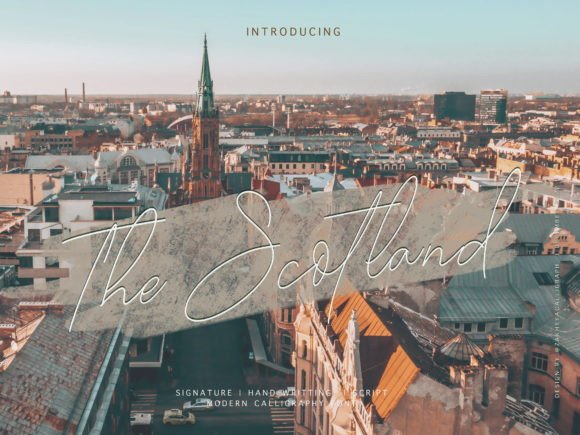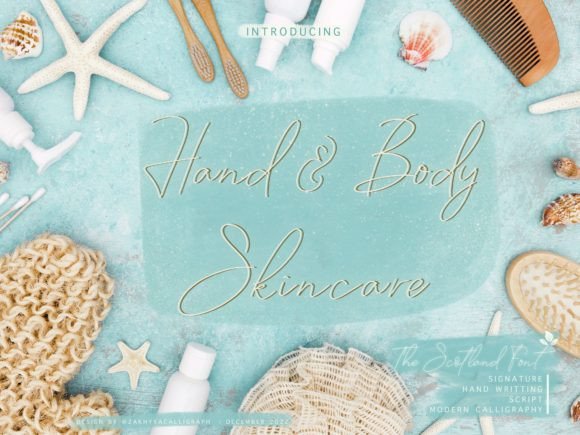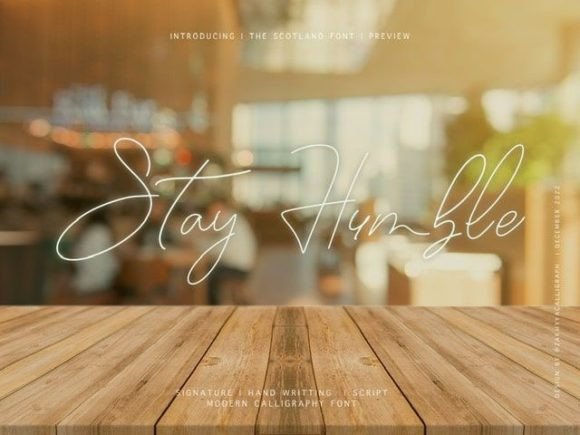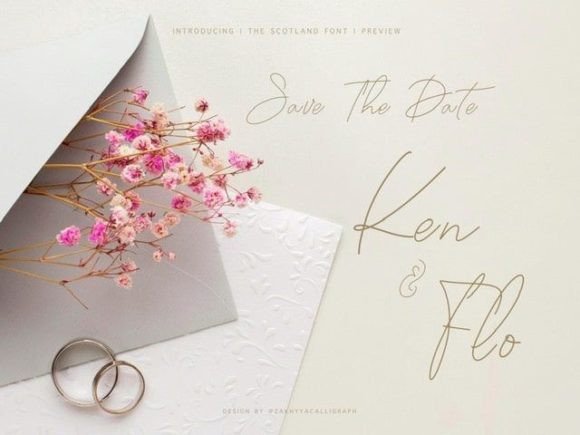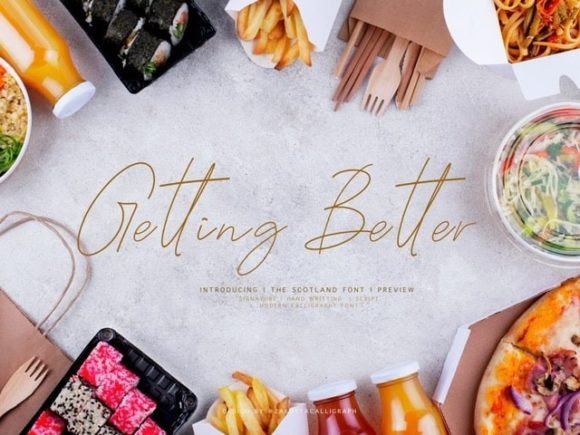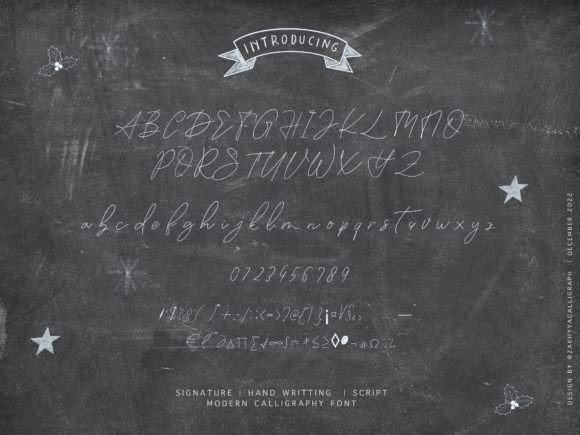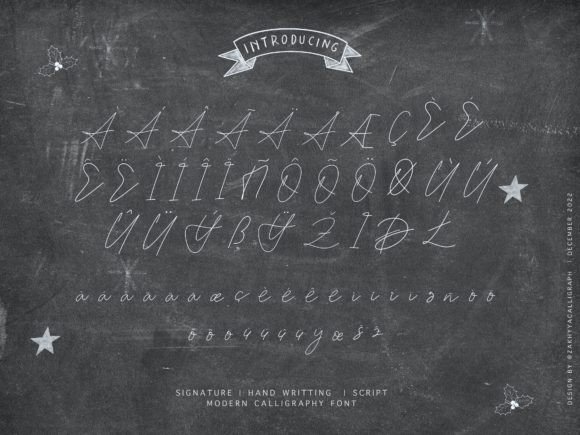
The Scotland Font
About The Scotland Font
The Scotland Font is a dazzling script typeface designed with meticulous care and intricate details. Its elegant and polished style makes it a valuable addition to any font library, capable of elevating a wide range of creative projects. Whether for logos, branding, invitations, or more, The Scotland adds sophistication and charm to your work.
Dazzling and Detailed Script Design
The Scotland features smooth, flowing strokes combined with fine details that create a luxurious and refined appearance. This font balances artistic elegance with readability, making it  for both formal and contemporary designs.
Ideal Uses for The Scotland Font
This versatile font is ideal for:
• Logos and brand identities
• Wedding and event invitations
• Greeting cards and stationery
• Packaging and product design
• Social media graphics and marketing materials
The Scotland enriches your projects with a dazzling handwritten touch.
Why Choose The Scotland Font?
Designers love The Scotland for its:
• Dazzling and detailed handwritten style
• Elegant, readable letterforms
• Versatility across print and digital media
These qualities make The Scotland a practical and stylish font choice.
Add Elegance and Sophistication to Your Designs
Typography shapes the impression of your project. The Scotland adds elegance, sophistication, and a handcrafted feel that helps your designs  with audiences. Whether for branding or special occasions, this font elevates your creative vision.
In summary, The Scotland Font is a dazzling and detailed script perfect for designers seeking a luxurious and elegant font. Add The Scotland to your font collection to create stunning and memorable designs.